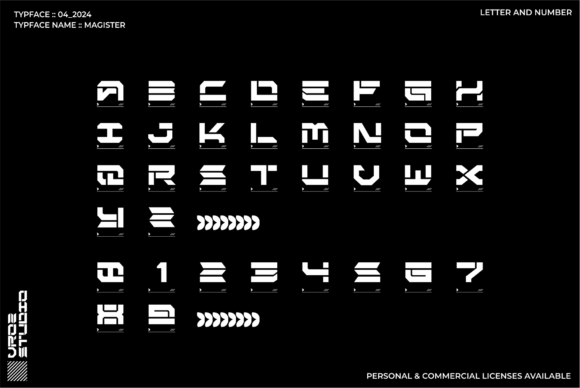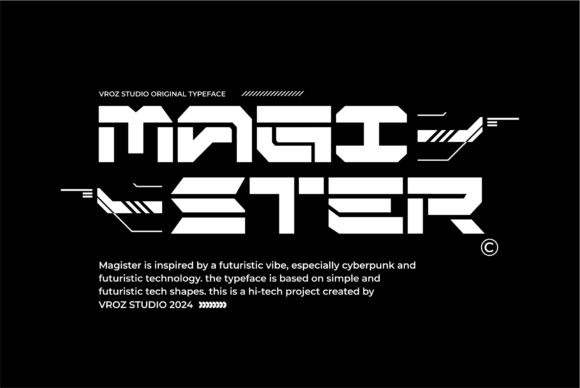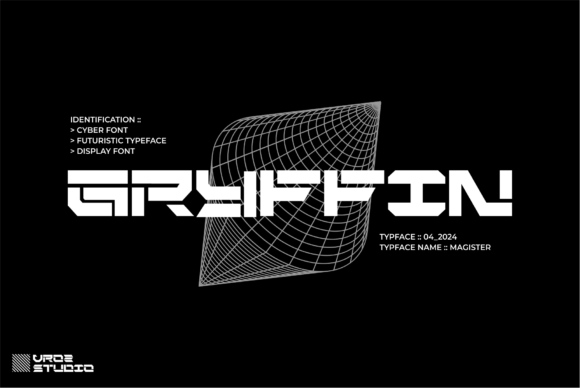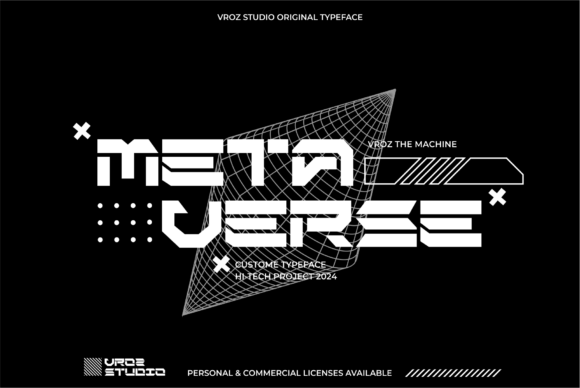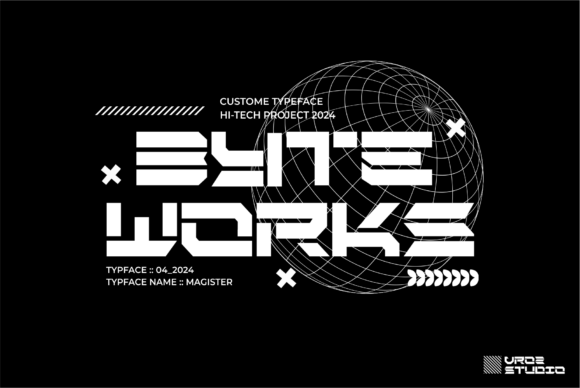
Introduction to Magister Font
Magister is inspired by a futuristic vibe, especially cyberpunk and futuristic technology.
the typeface is based on simple and futuristic tech shapes MAGISTER FONT It’s perfect for headlines, billboards, magazines, websites, titles, posters, branding, thumbnails, t-shirt designs, streetwear designs, creative logos, or any project in need of a futuristic touch.
Key Features of Magister Font
Why Choose Magister Font?
Magister Font offers exceptional quality and versatility, making it a valuable addition to your design toolkit. Whether you’re creating for personal projects or commercial use, Magister Font delivers professional results.